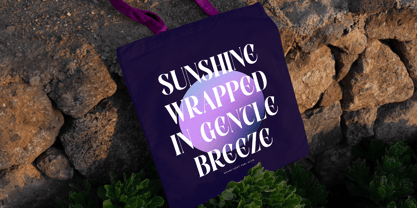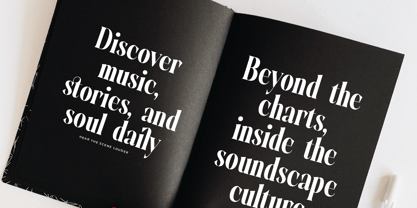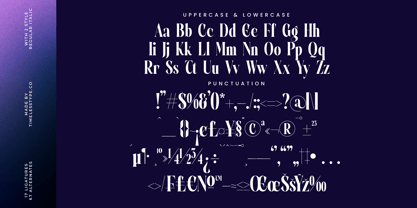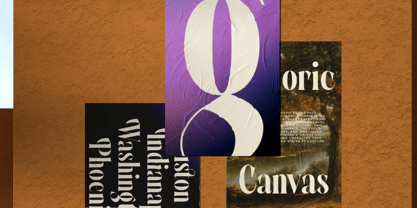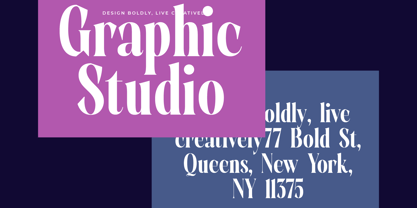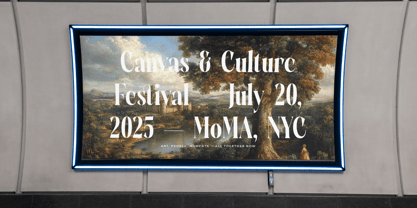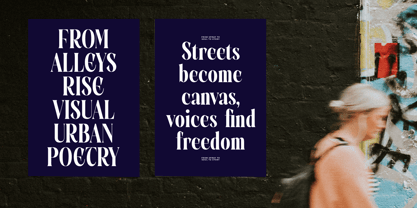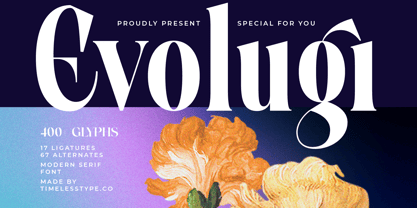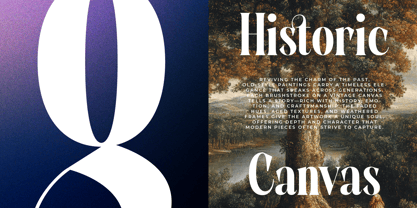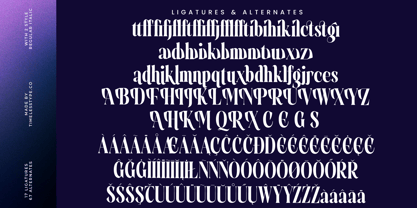
Evolugi
The Evolugi Font Family was designed by Heru Utama Putra and published by Timelesstype Studio. Evolugi contains 2 styles and family package options.
Evolugi - Modern Serif Font , from Timelesstype, Suitable for any projects such as: logos, branding projects, homeware designs, product packaging, mugs, quotes, posters, shopping bags, t-shirts, book covers, name card, invitation cards, greeting cards, label, photography, watermark, special events, and all your other luxury and beautiful projects that need a Luxury Serif taste.